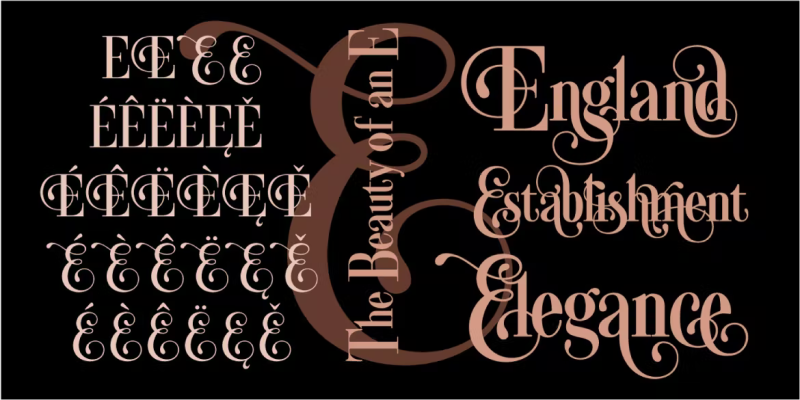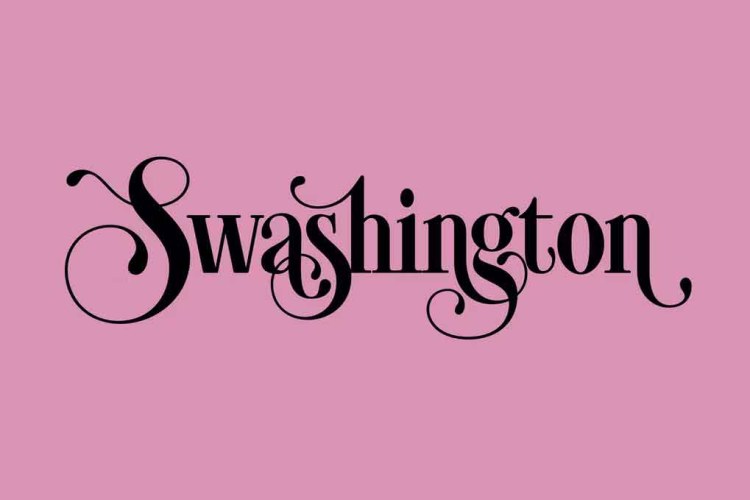
Swashington Font
Inspired by a few letters in a hand-drawn logotype, Swashington is a serif font with both an early 20th Century feel and yet is evocative of the swash fonts of the 1970s…
Inspired by a few letters in a hand-drawn logotype, Swashington is a serif font with both an early 20th Century feel and yet is evocative of the swash fonts of the 1970s as well. The real meat of this typeface comes with using all the swash and ligature variants, allowing for an enormous amount of typographic flair. Starting with the original logo, Jason Walcott was moved to develop these interesting letterforms into a full typeface with all the swashy might he could muster. In addition to a comprehensive set of Swash and Alternate letters, there are also over 270 Discretionary Ligatures that can be used to create different possibilities by mixing and matching. Included with the downloaded fonts are two .pdf files showing all the swashes and ligatures, that can be printed and used for easy reference. All of the alternates are available via the Glyph Palette or with OpenType features. The font includes support for all Latin based and most Eastern European languages.
Where Swashington Font works best
Seasonal campaigns
Swashington Font gives a holiday or themed promotion its own look without redrawing anything; use it for the headline only.
Party and family invitations
Decorative letters set the mood before the text is read. Pair Swashington Font with a plain sans for the practical details.
Game and video titles
Themed lettering sells the world of a game or a channel in one frame.
What kind of work does Swashington Font suit?
It sits in the Decorative Fonts group and reads as branding, decorative, decorative fonts, handwritten. That makes it a candidate wherever those qualities help: headings, packaging, social graphics and brand work. Set it at the size you plan to use before deciding.